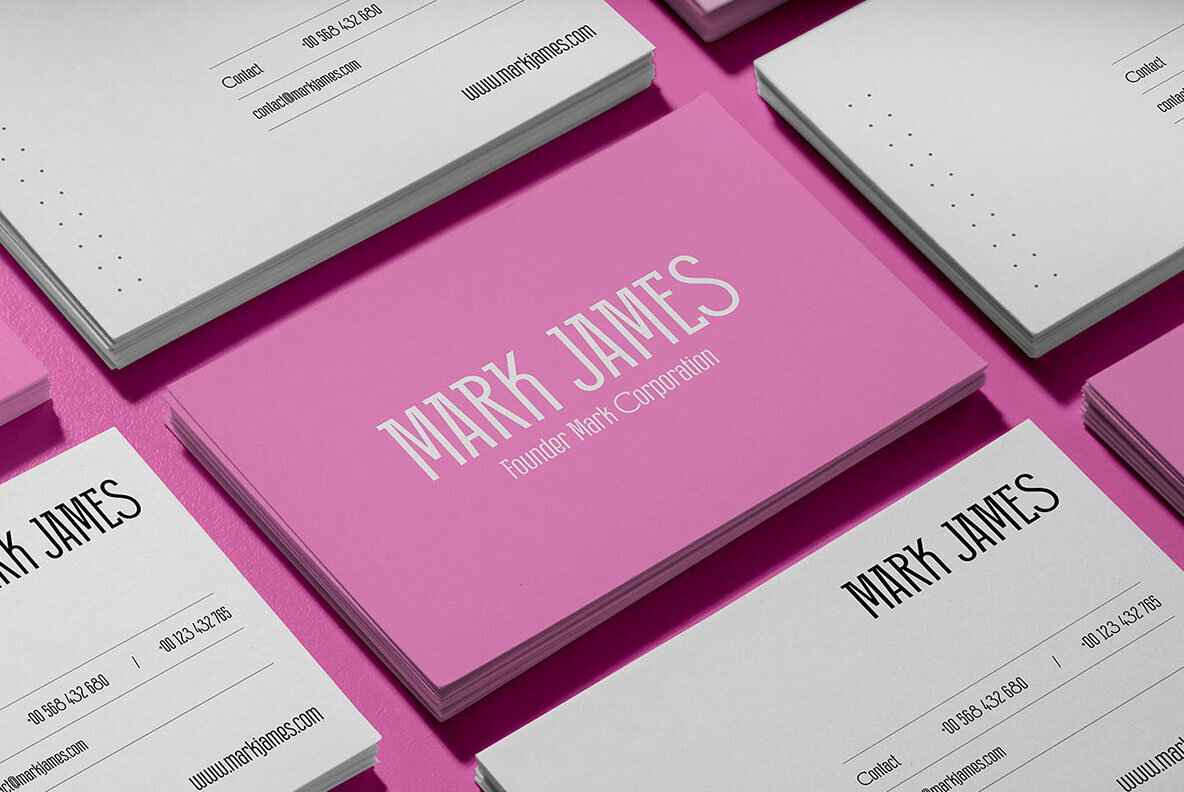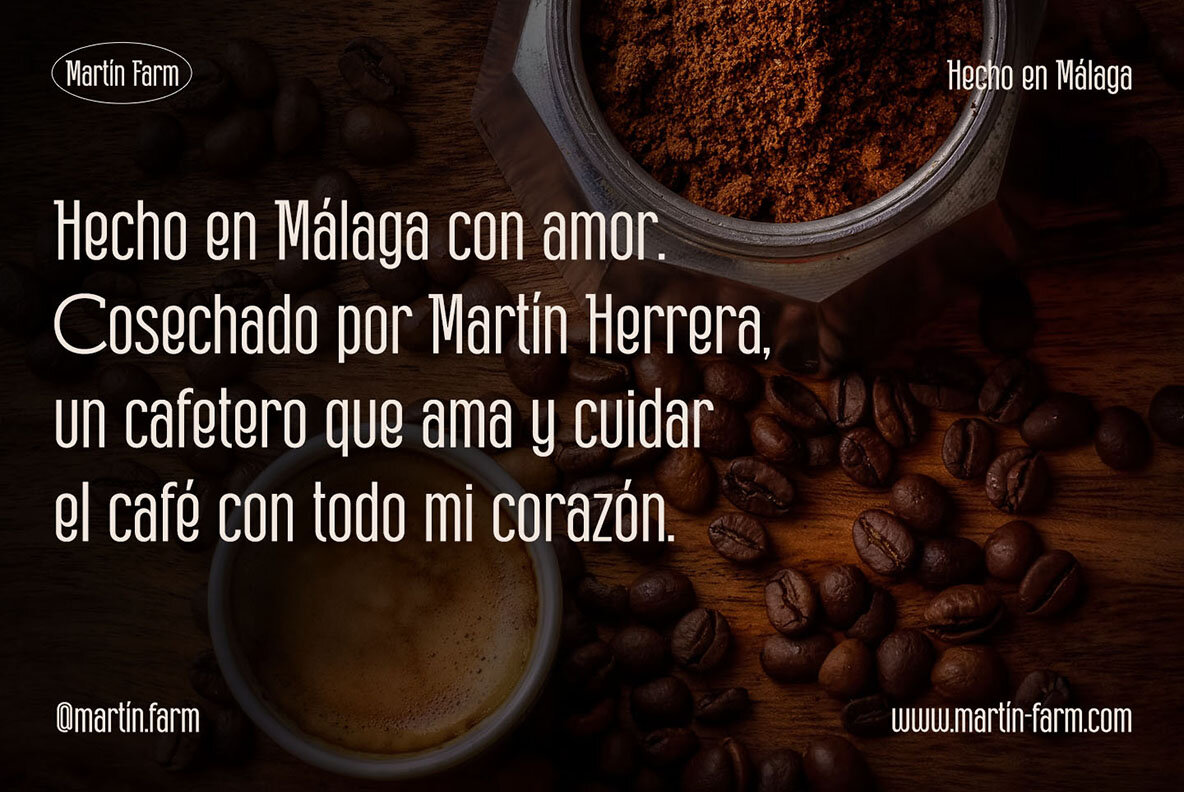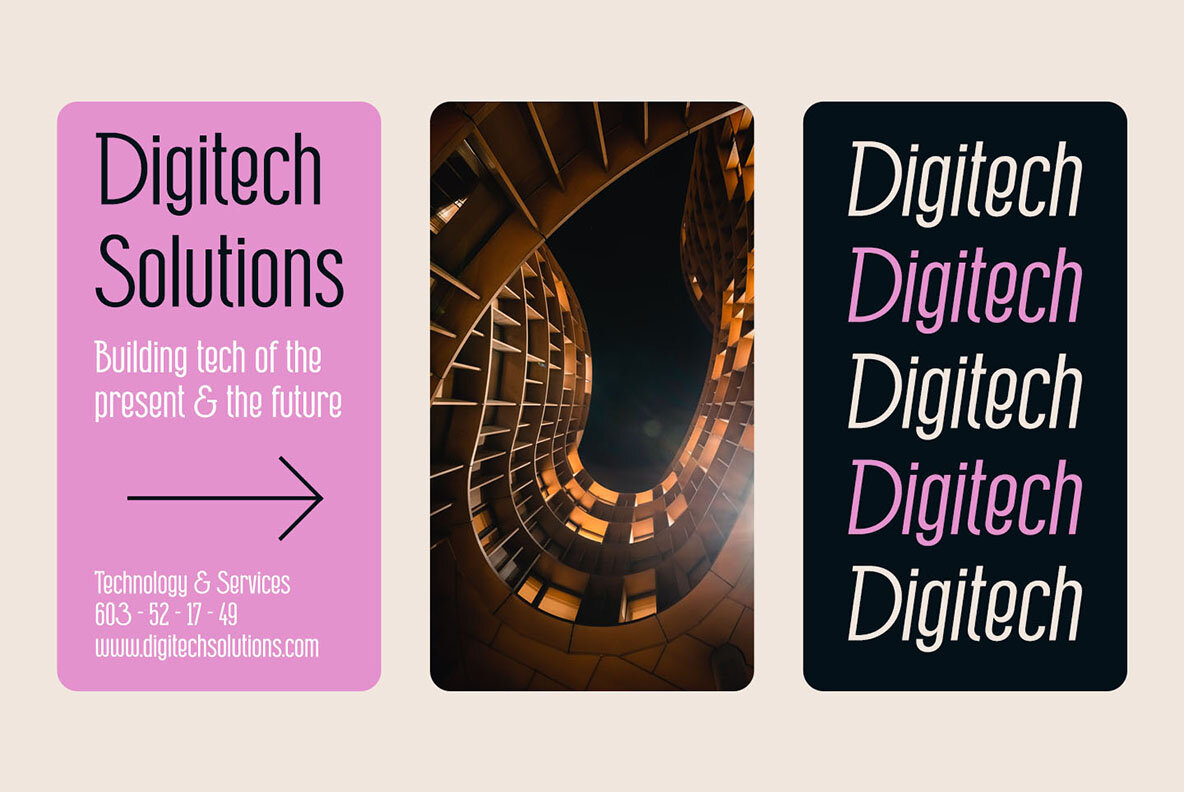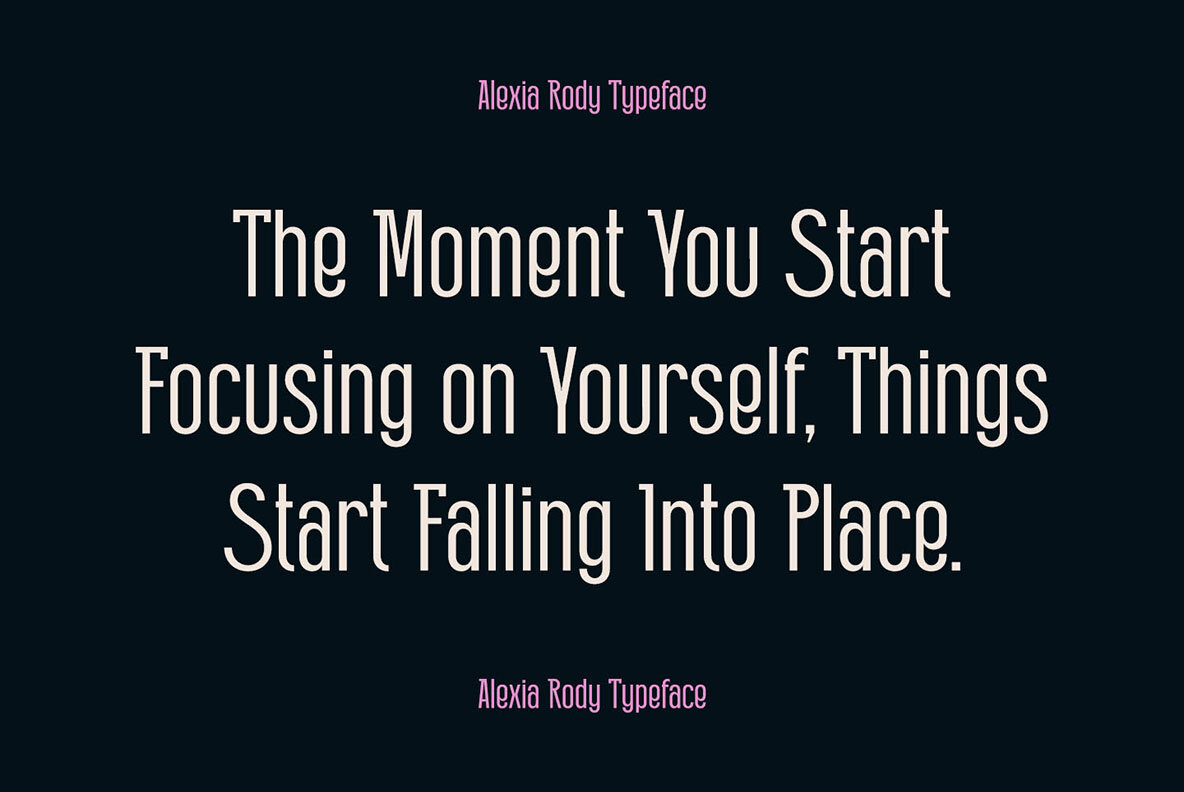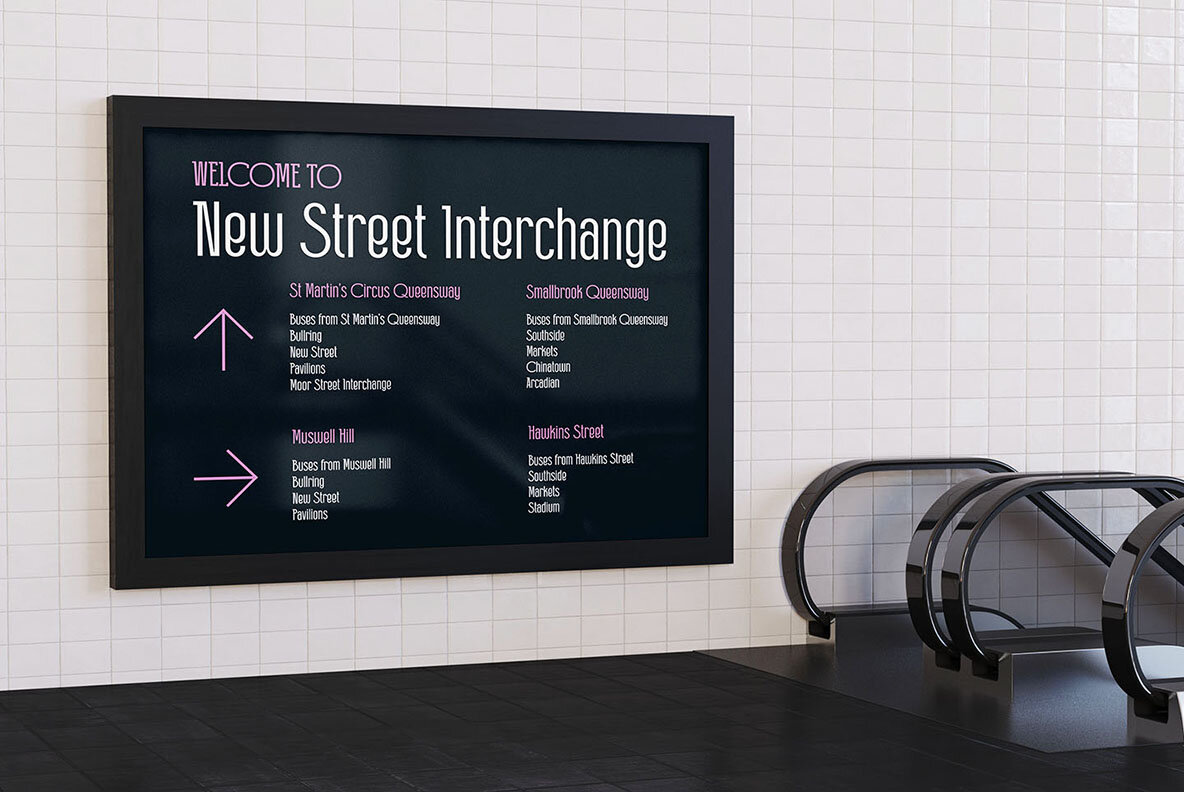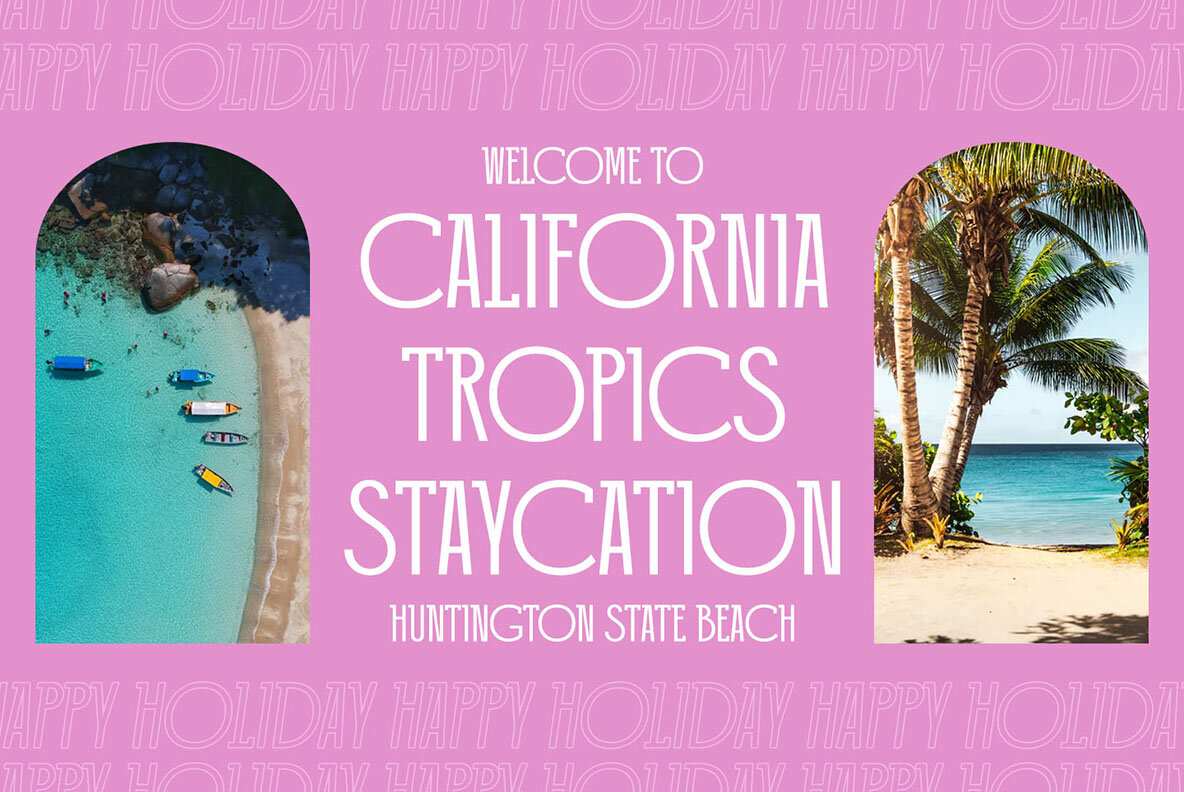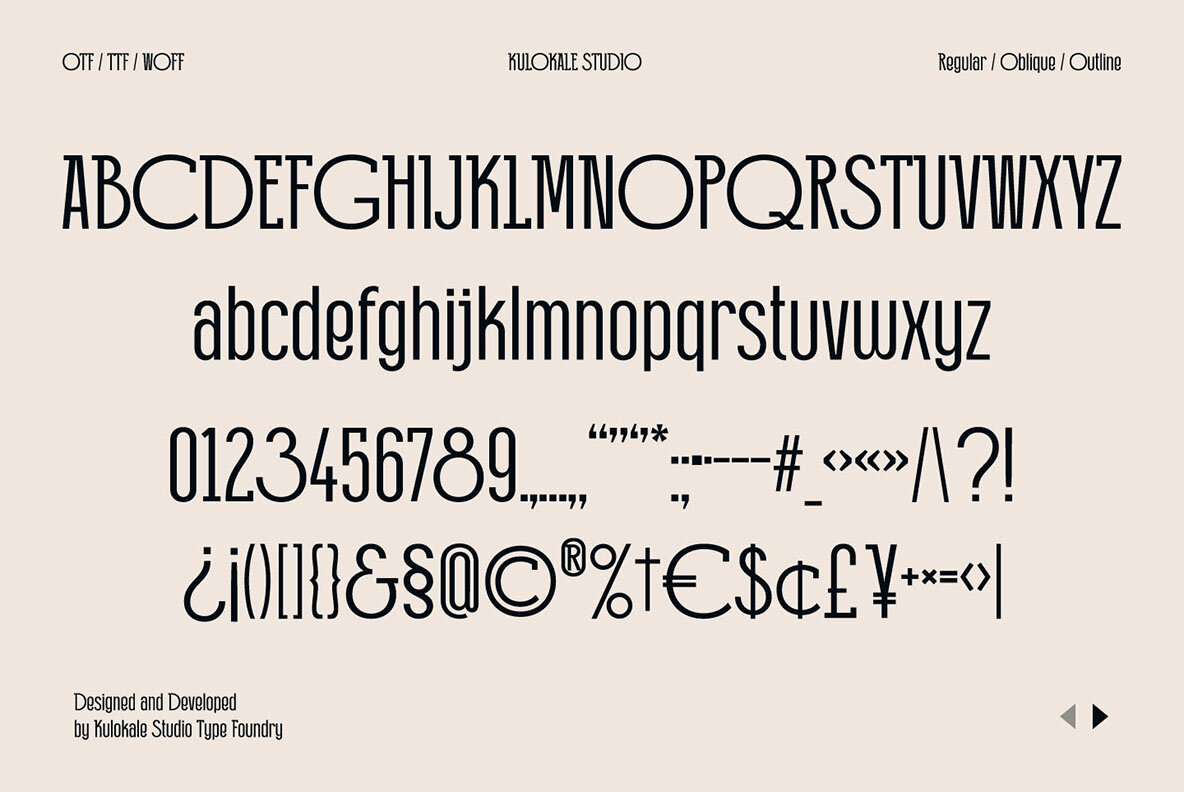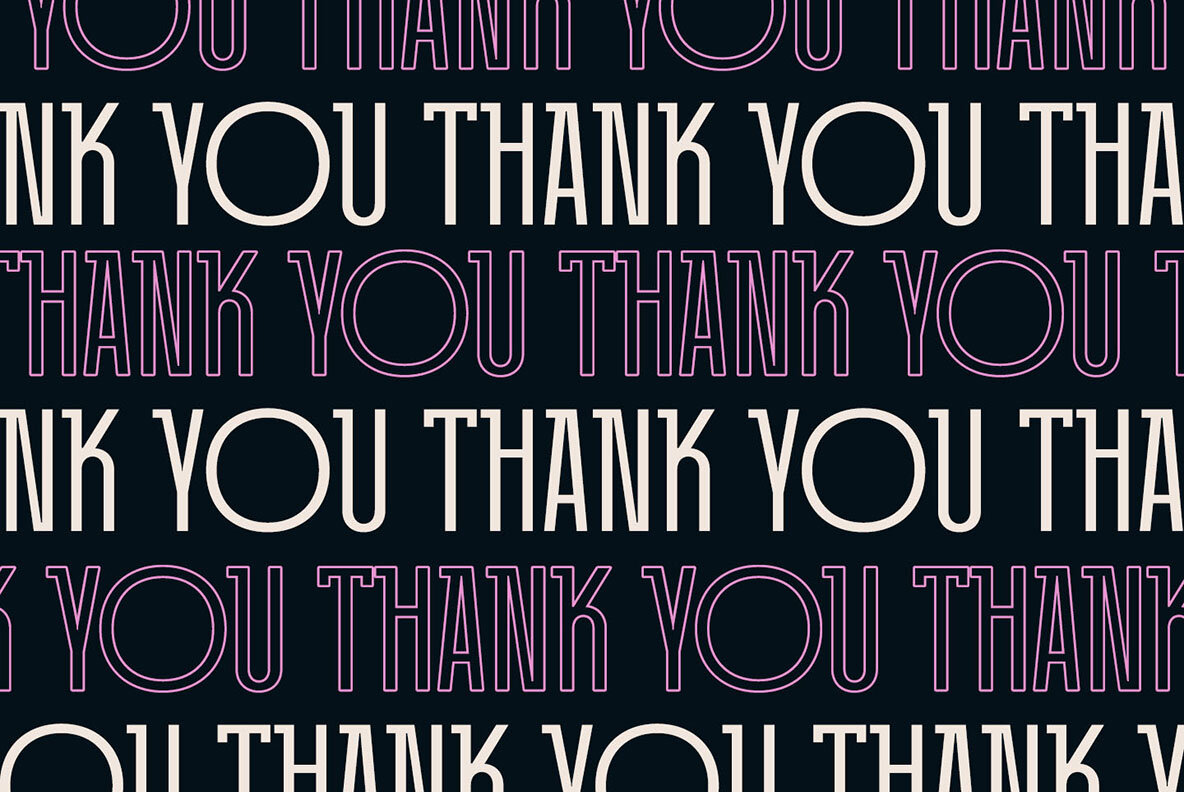
Alexia Rody Font
Alexia Rody is a stylish, clean, and modern condensed sans font, with style that is very different from the others. This font comes in four styles, Regular, Oblique, Outline and Oblique Outline Version.
Alexia Rody is well-suited for posters, social media, headlines, magazine titles, clothing, large print formats - and wherever you want to be seen. Inspired by the style of design that is currently popular, and this is the answer to all the needs of every idea that you will pour in this modern era.